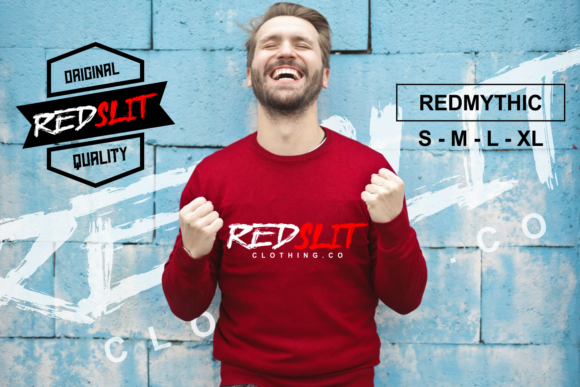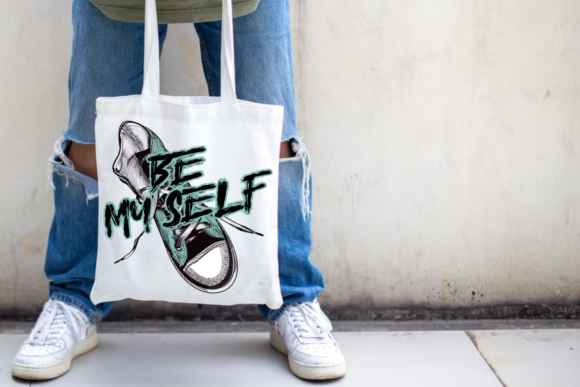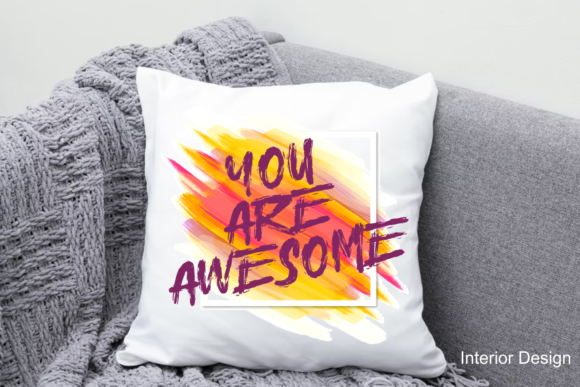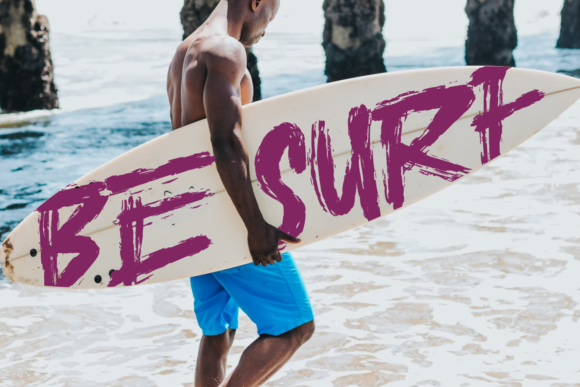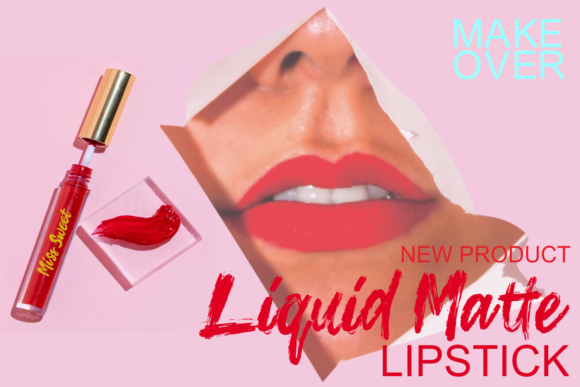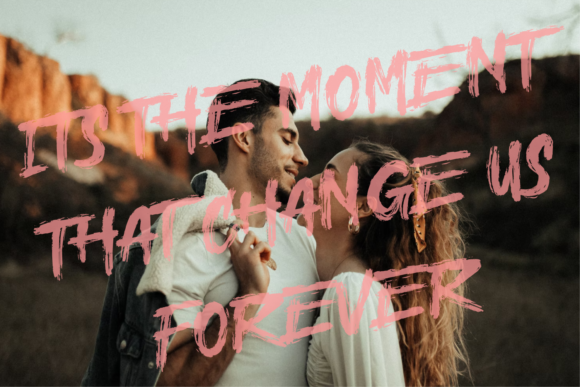
Introduction to Redslit Font
Remember that moment when you stumbled upon the perfect font, and it instantly elevated your design project from good to great? For many of us, it’s a thrill that never gets old. One such gem that has been making waves in the design community is the Redslit Font – a cool, brushed display font that’s sure to leave a lasting impression.
As a valuable addition to your font library, Redslit Font has the potential to breathe new life into any creative project. Its high-quality design makes it an ideal choice for designers looking to add a touch of sophistication to their work. Whether you’re working on a logo, poster, or social media graphic, this versatile font is sure to shine.
With its sleek, modern aesthetic and transparent background, Redslit Font is the perfect design resource for anyone looking to take their creative project to the next level. And the best part? It’s available for free download, making it an accessible asset for designers of all levels.
Key Features of Redslit Font
- Transparent background allows for seamless integration with various design elements.
- Customizable font with various styles and weights, perfect for designers looking for a distinctive look.
- Resolution-independent, ensuring crisp and clear text display regardless of screen resolution.
- Available in multiple sizes, from 18pt to 72pt, making it suitable for various design applications.
- Perfect for designers seeking a high-quality, free design resource to elevate their creative project.
Honest Review: Redslit Font
As a designer, I’m always on the lookout for high-quality design resources that can elevate my creative project. Recently, I stumbled upon the Redslit Font, and I’m excited to share my honest review.
Here are the things that I love about Redslit Font:
- ✨ High-quality design: The font is beautifully crafted with precise details and smooth lines.
- ✨ Versatility: The font is suitable for a wide range of creative projects, from posters to digital interfaces.
- ⚠️ Limited character set: The font only includes a limited set of characters, which may not be suitable for projects that require a wide range of special characters.
- ⚠️ Transparency: The font has a transparent background, which can make it difficult to use in certain design situations.
Overall, I’m impressed with the Redslit Font. While it has some limitations, its high-quality design and versatility make it a valuable resource for designers. With a little creativity, I think this font can be used to create some truly amazing designs.
Designing with Redslit Font
The Redslit Font is a high-quality design resource that can be used in a variety of creative projects. Its unique style and transparent background make it an excellent choice for designers looking for a versatile font.
Using Redslit Font in PowerPoint/Word
Open PowerPoint or Word and select the Redslit Font from your font library. You can then use it to create custom presentations and documents.
Getting the Most Out of Redslit Font
To get the most out of the Redslit Font, use it in conjunction with other design elements to create a cohesive look. Experiment with different font sizes, colors, and styles to find the perfect combination for your project.
The Redslit Font is commonly used in creative projects such as logo design, graphic design, and typography. Its unique style and transparent background make it an excellent choice for designers looking for a versatile font.
Does the Redslit Font have a transparent background?
Yes, the Redslit Font has a transparent background, making it ideal for use on high-quality designs with complex backgrounds. The font’s transparent background allows it to blend seamlessly with your design, giving you more creative freedom to work with.